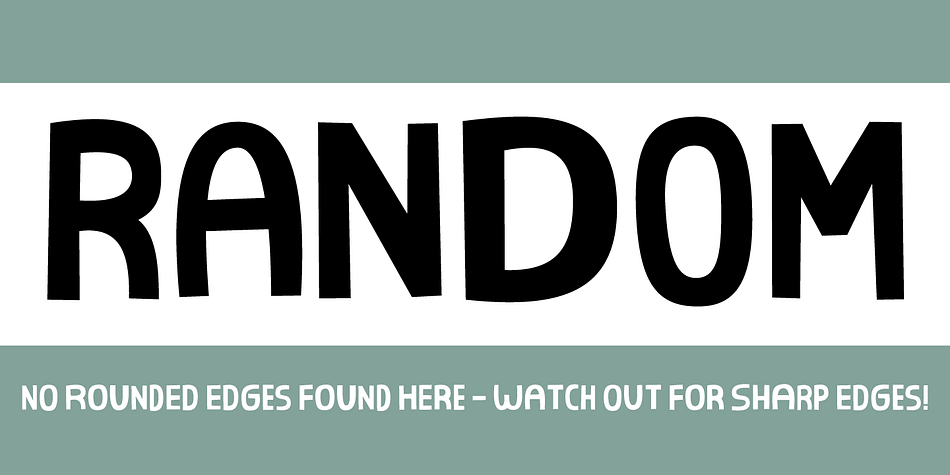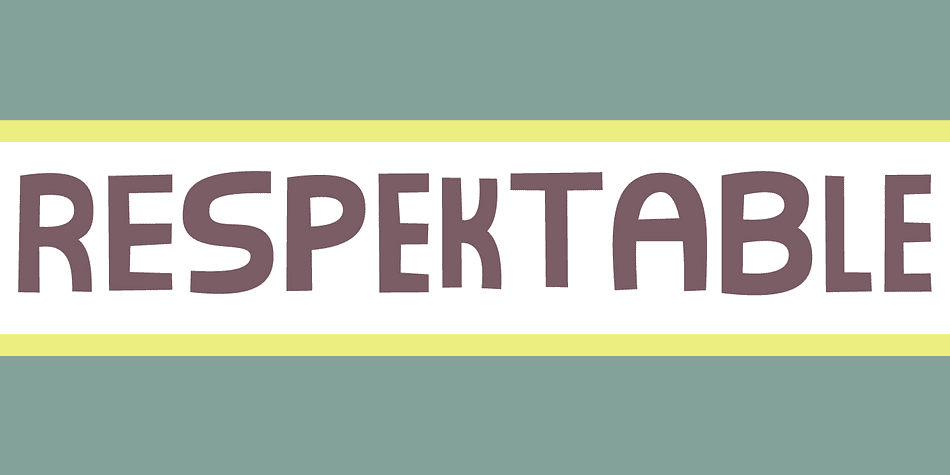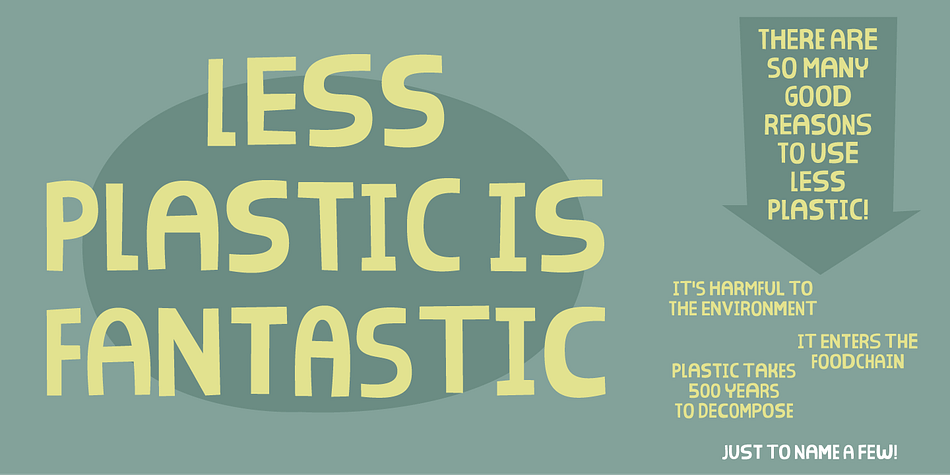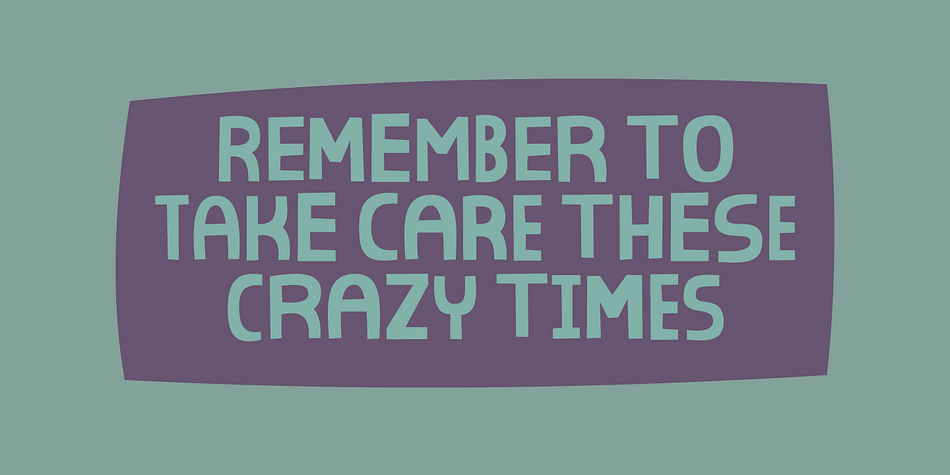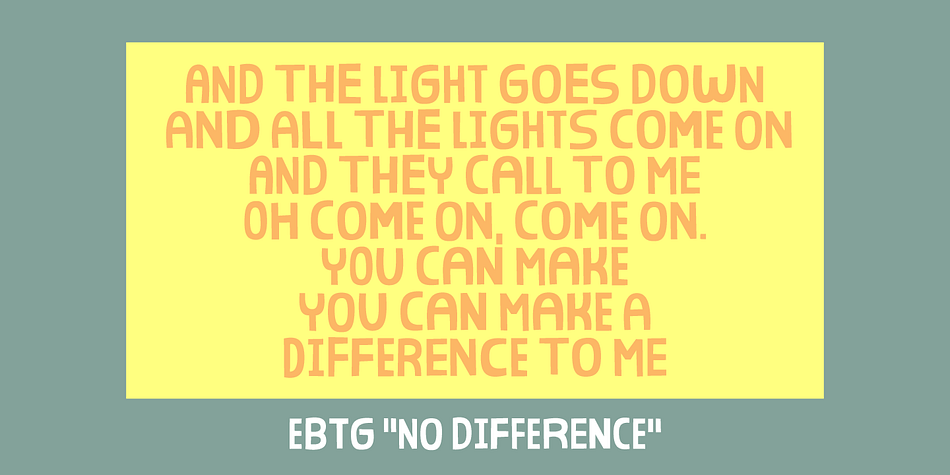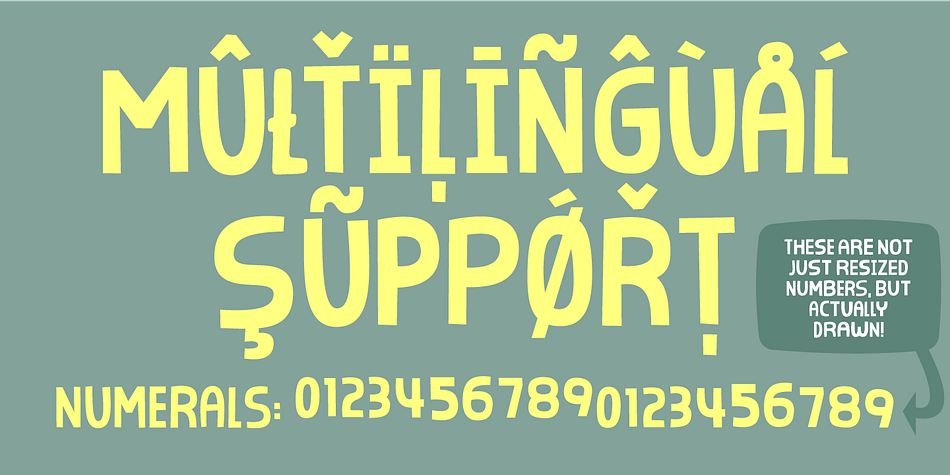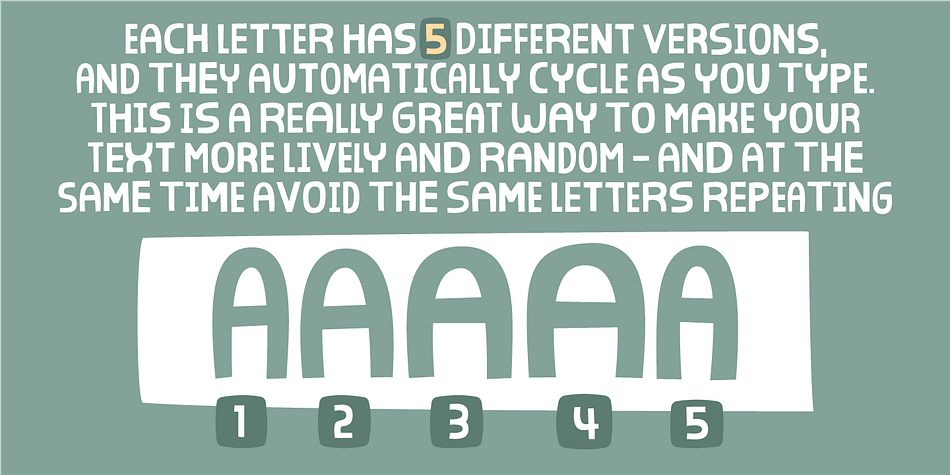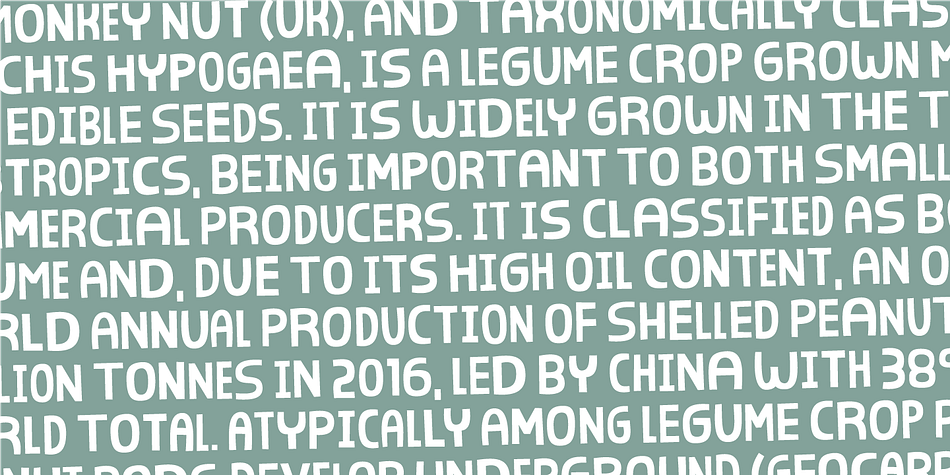
Respektable
Designed by Jakob Fischer, Respektable is a hand display and hand drawn font family. This typeface has two styles and was published by Pizzadude.dk.
Respektable is random and funky ant the same time, and even though all letters are super legible, the font has this unpredictable feeling to it. Each letter has 5 different versions that vary in width and stroke weight.